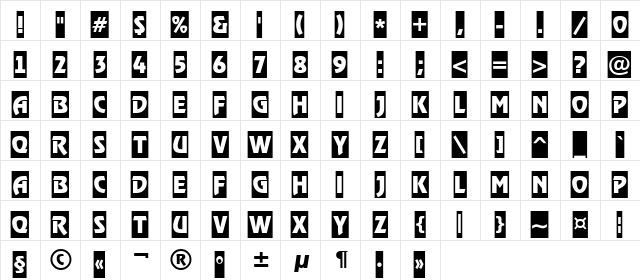
a_RewinderTitulCm Regular Font Preview
a_RewinderTitulCm Regular
a_RewinderTitulCm Regular Font Details
Design Context for a_RewinderTitulCm Typeface
a_RewinderTitulCm offers clean, dependable letterforms without strong stylistic allegiance, making it a practical choice for designers who need flexibility.